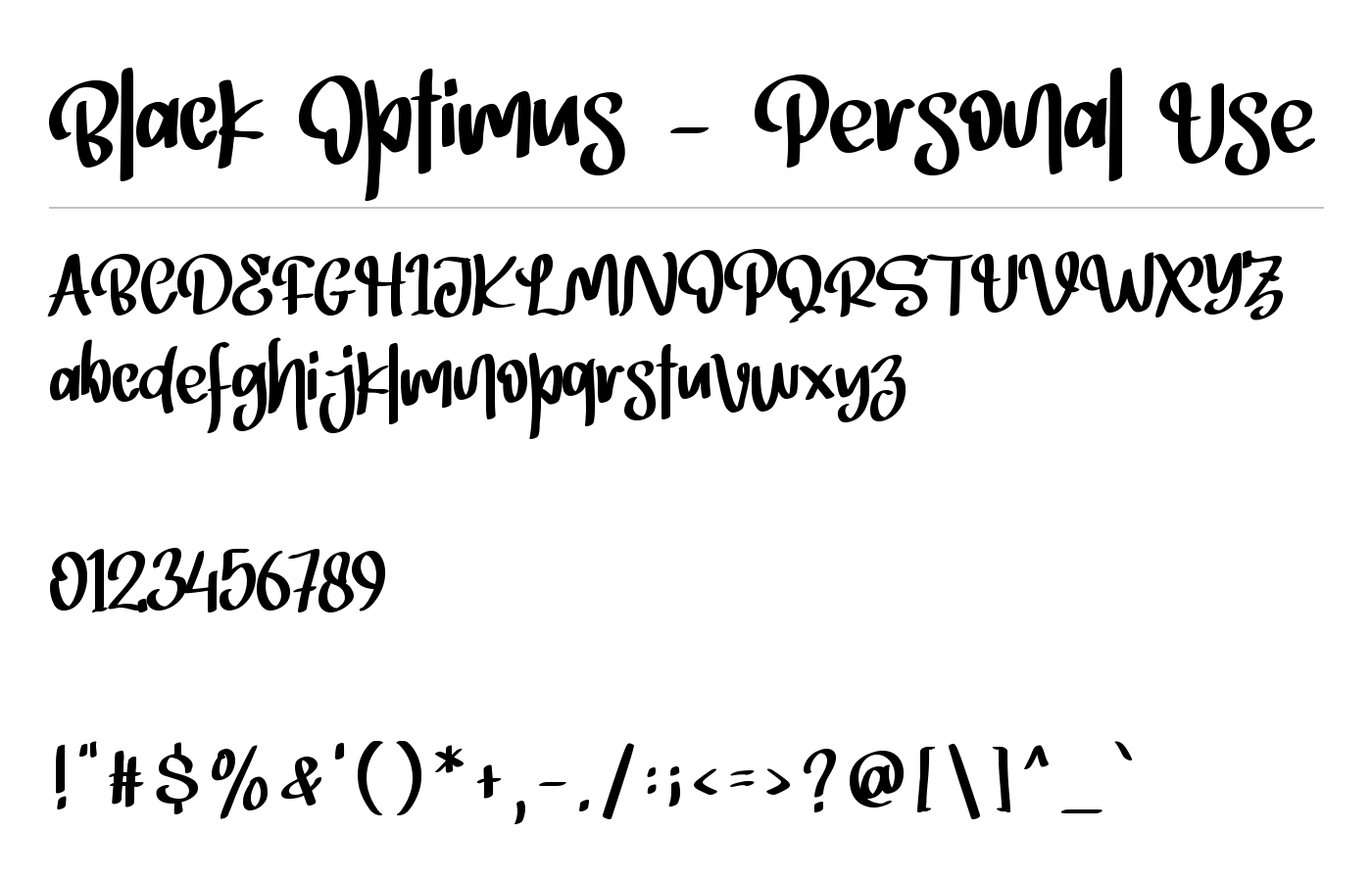
Black Optimus is a bold, hand-lettered script font that blends playful charm with dynamic energy. Its brush-like strokes and lively letterforms make it perfect for creative projects, branding, and headlines that seek a friendly, informal, and approachable vibe. This font works wonderfully in designs that want to feel personal and expressive, such as invitations, logos, and social media graphics.
Black Optimus - Personal Use Font
About Black Optimus - Personal Use Font
| Font family | Black Optimus - Personal Use Font |
| Designer | Ahmad Afandi |
| Trademark | Letterafa Studio |